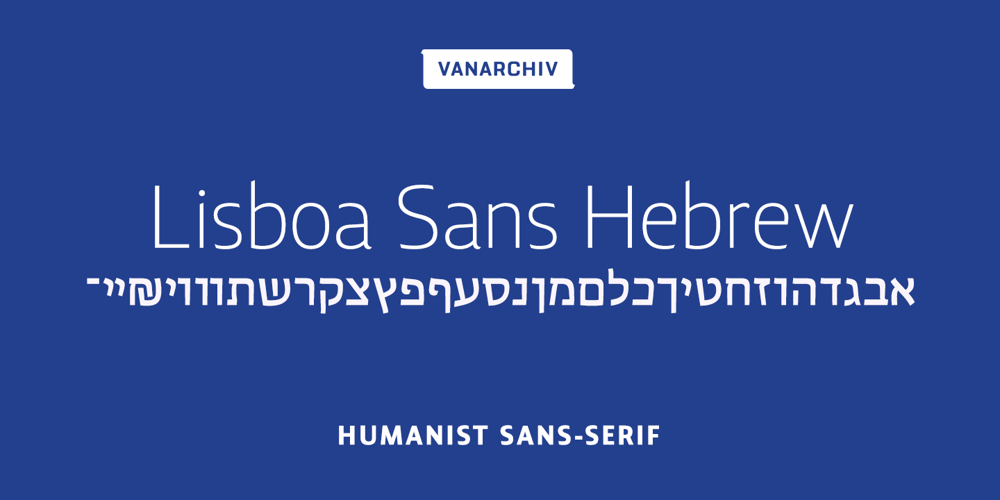
Lisboa Sans Hebrew Font Family was designed by Ricardo Santos and published by Vanarchiv. Lisboa Sans Hebrew contains 9 styles and family package options. Lisboa Sans Hebrew is humanist sans-serif typeface, the design approach is much more simple and neutral than Lisboa Hebrew font family. Latin transliteration characters were also included.